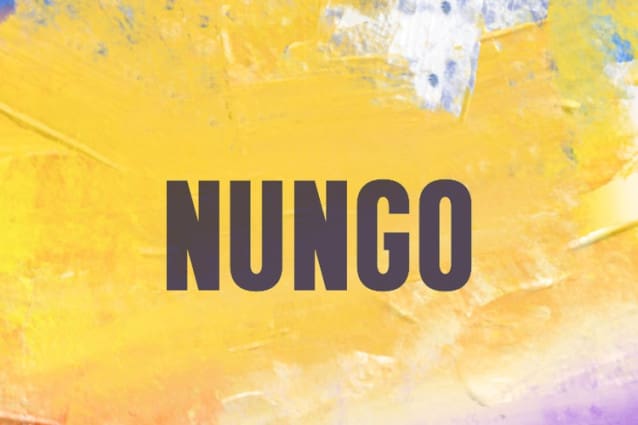
Nungo Font
Nungo Font a bold statement with our latest sans-serif font. With its clean lines and modern appeal, this font is sure to turn heads and leave a lasting impression. Perfect for headlines, logos, and any design that demands attention. It is both functional and stylish, making it a versatile choice for a wide range of design projects.